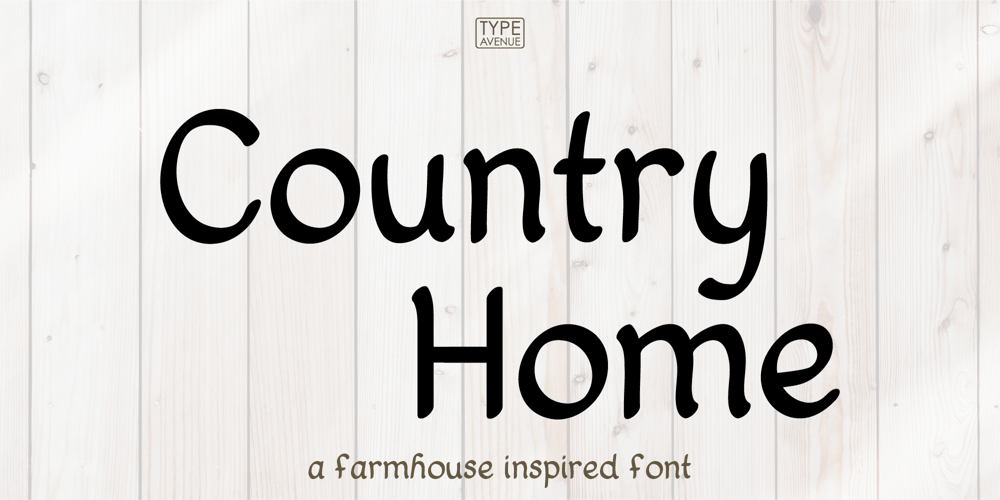
Country Home Font Family was designed by Jess J and published by Type Avenue. Country Home contains 1 styles and family package options. This font is riddled with subtle personality. Its slight loops give it a homey feel while being neat, and very legible. It has a good weight perfect to use on cutting machines and sublimation.